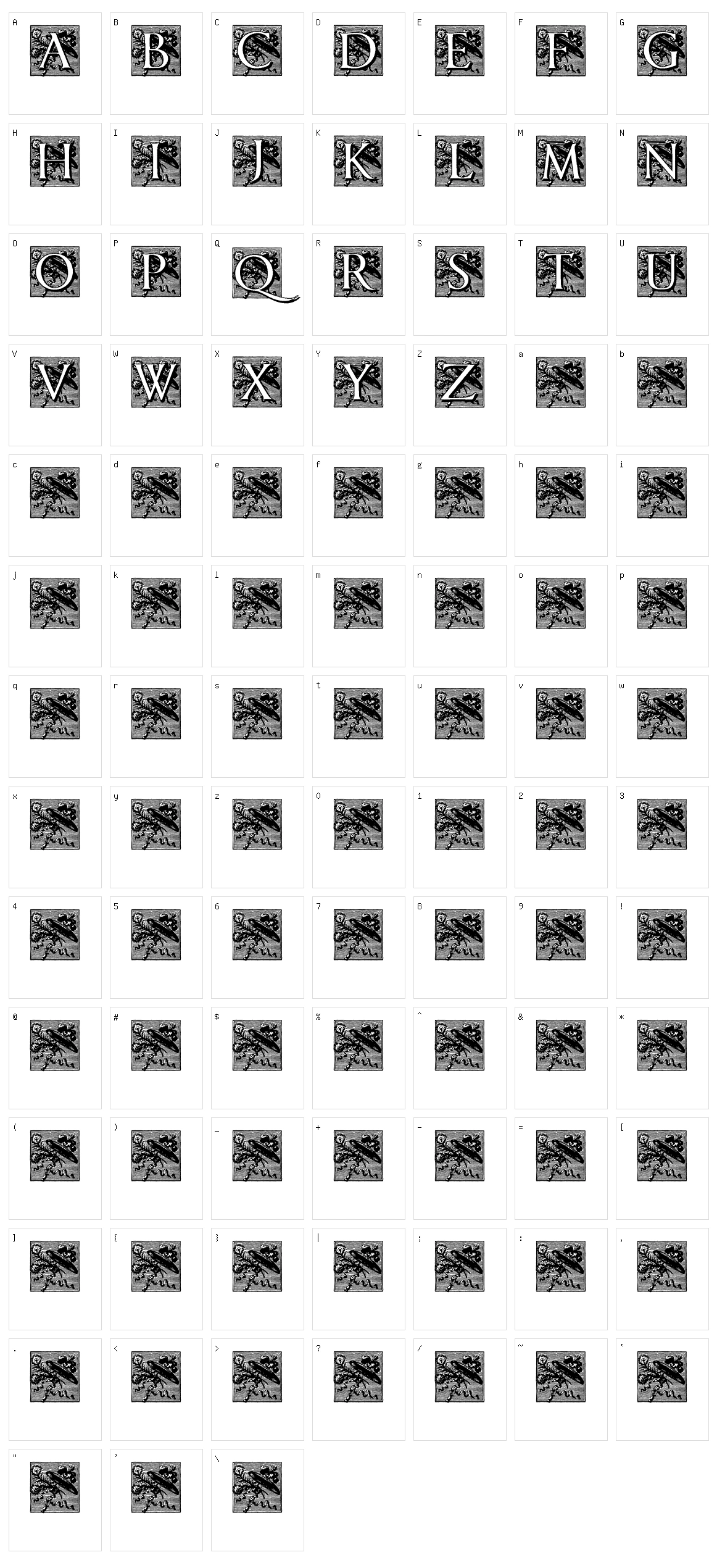
Pompadour Initials
based on one of the engravings from 'Mysterious Voyage' that particularly
caught my eye, and applied across the whole alphabet.
I think the result looks very smart.